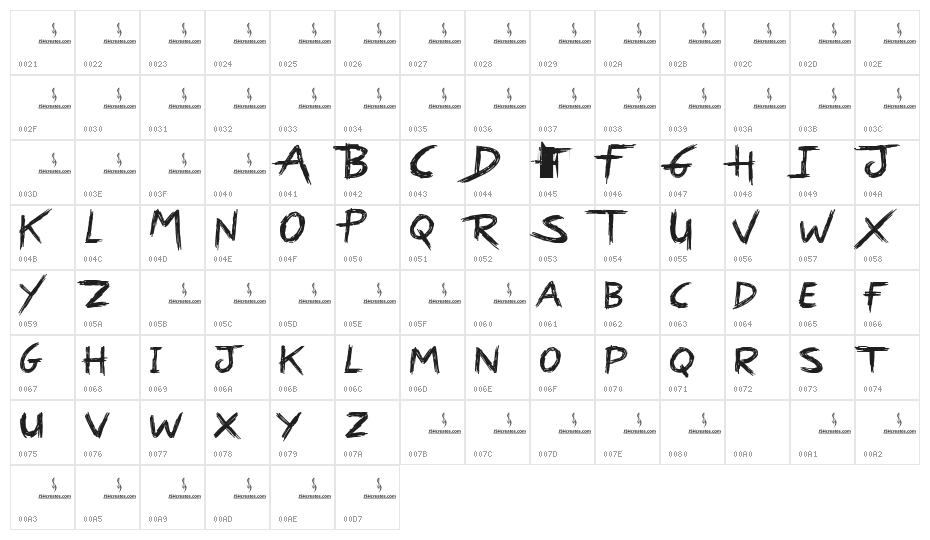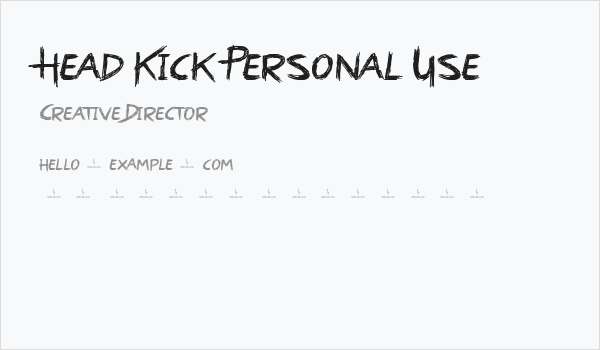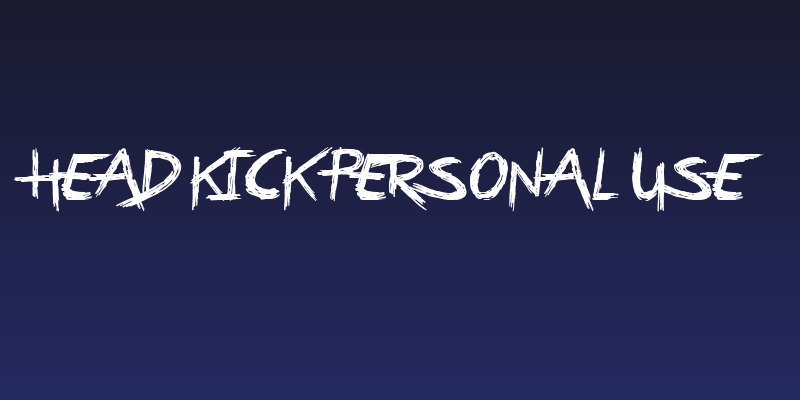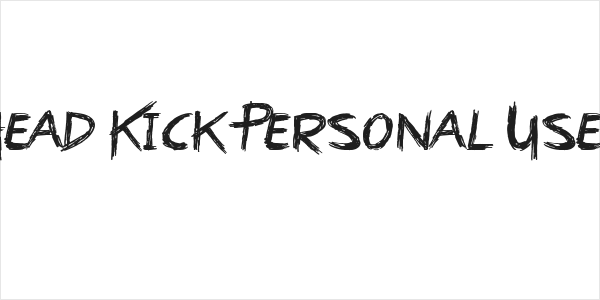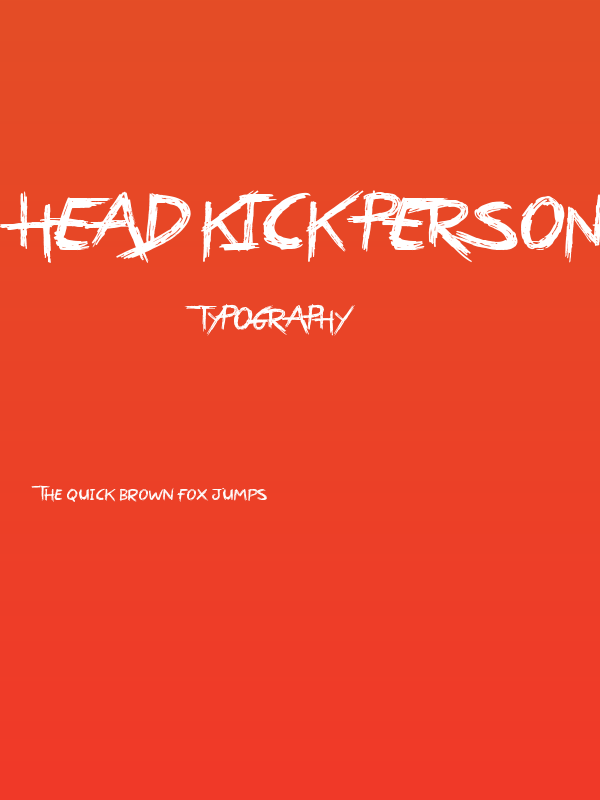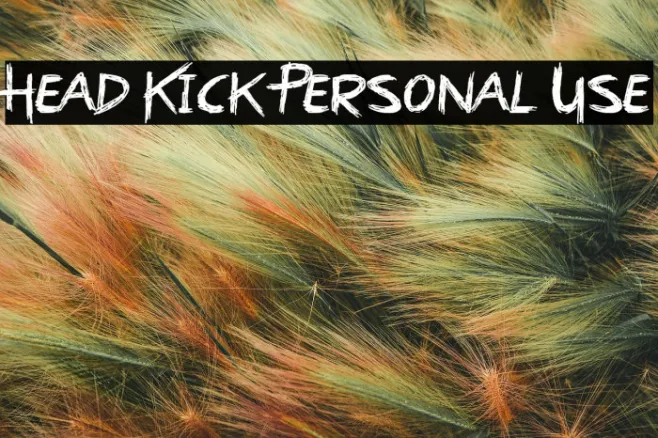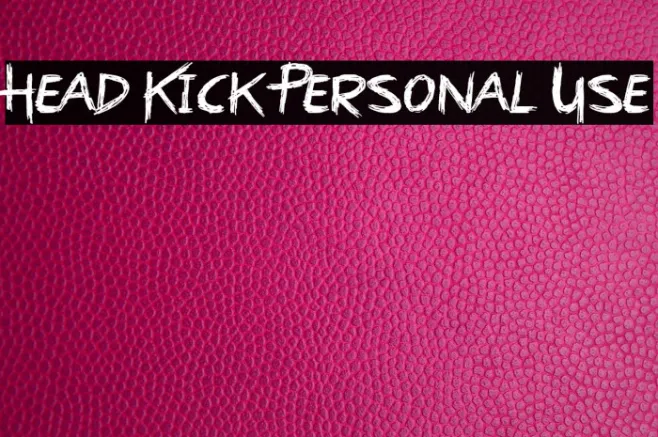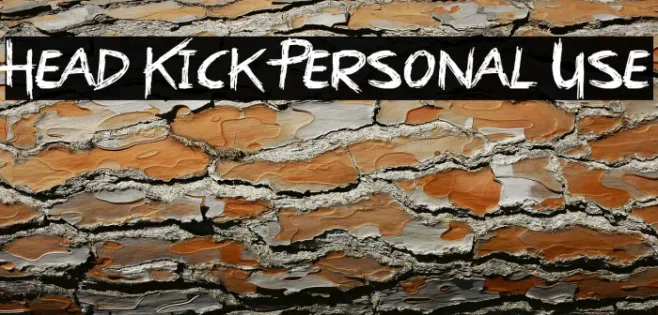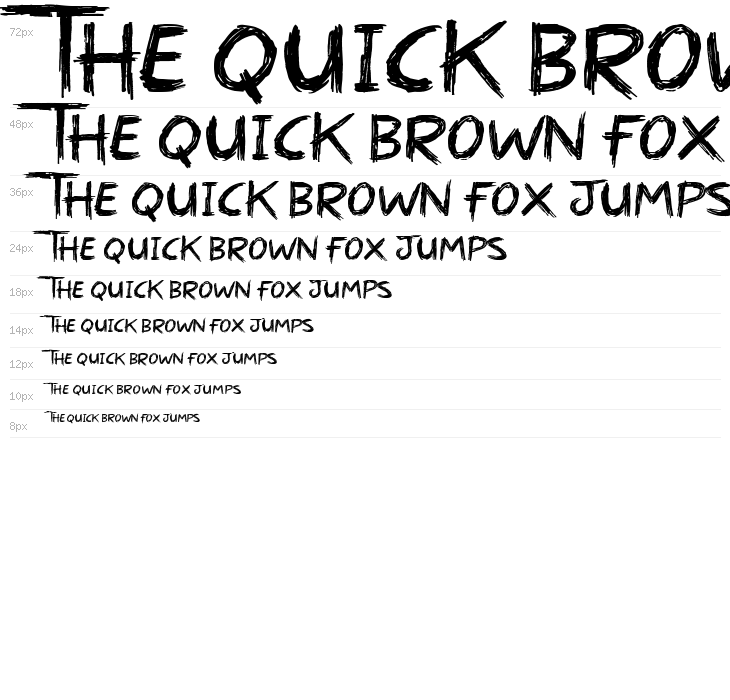
Head Kick Personal Use Font
Head Kick Personal Use Description
This font features a bold and aggressive style, characterized by sharp, jagged edges and a hand-drawn appearance. The strokes are uneven, giving it a raw and energetic feel, reminiscent of graffiti or street art. The uppercase and lowercase letters maintain a consistent style, with exaggerated angles and a dynamic flow. The numbers and special characters follow the same aesthetic, ensuring a cohesive look across all elements. This font is designed to stand out and make a strong visual impact.
| Overall Style | Modern, Urban, Energetic |
| Proposed Projects | Ideal for projects requiring a bold statement, such as posters, album covers, or branding for edgy, urban-themed products. |